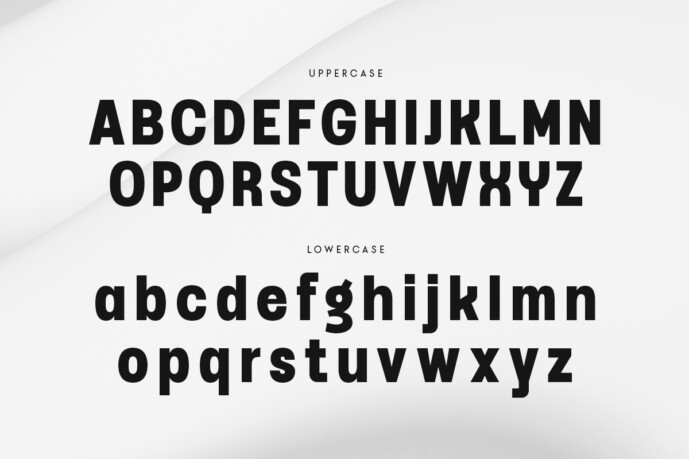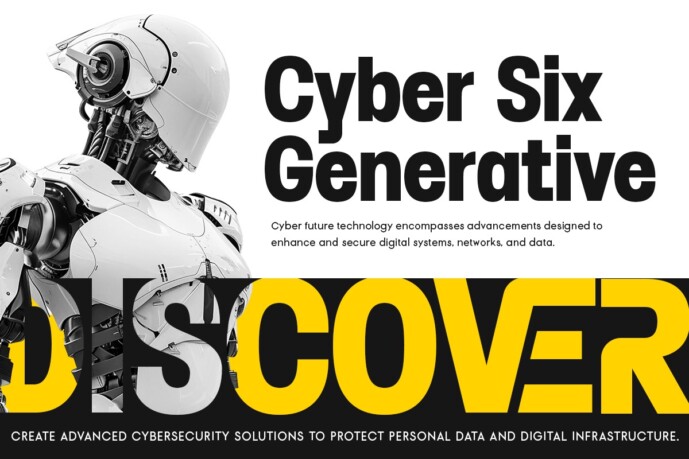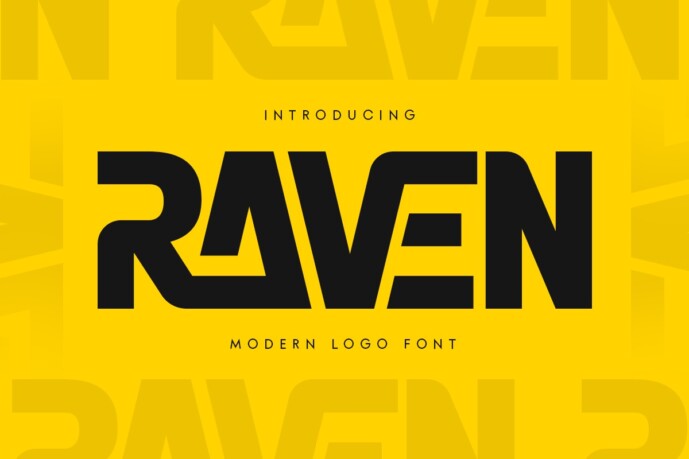
Raven Font
Designer: HamzStudio
Raven Font is a modern logo font designed to enhance your branding and design projects with clean lines and a bold aesthetic. Its contemporary style makes it perfect for logos, headlines, and any project that requires a minimalist, striking touch. Raven’s strong geometric shapes create a professional and refined look, making it ideal for modern businesses and creative companies.
Inspired by the simplicity of modern typography, Raven combines elegance and functionality, allowing it to shine across both digital and print mediums. Whether creating a logo, crafting a brand identity, or designing marketing materials, Raven’s versatility will bring a fresh, sophisticated feel to your work.
With its crisp, clean lettering, Raven helps you create impactful designs that are both timeless and on-trend, making it a must-have for anyone looking to add a bold, modern touch.